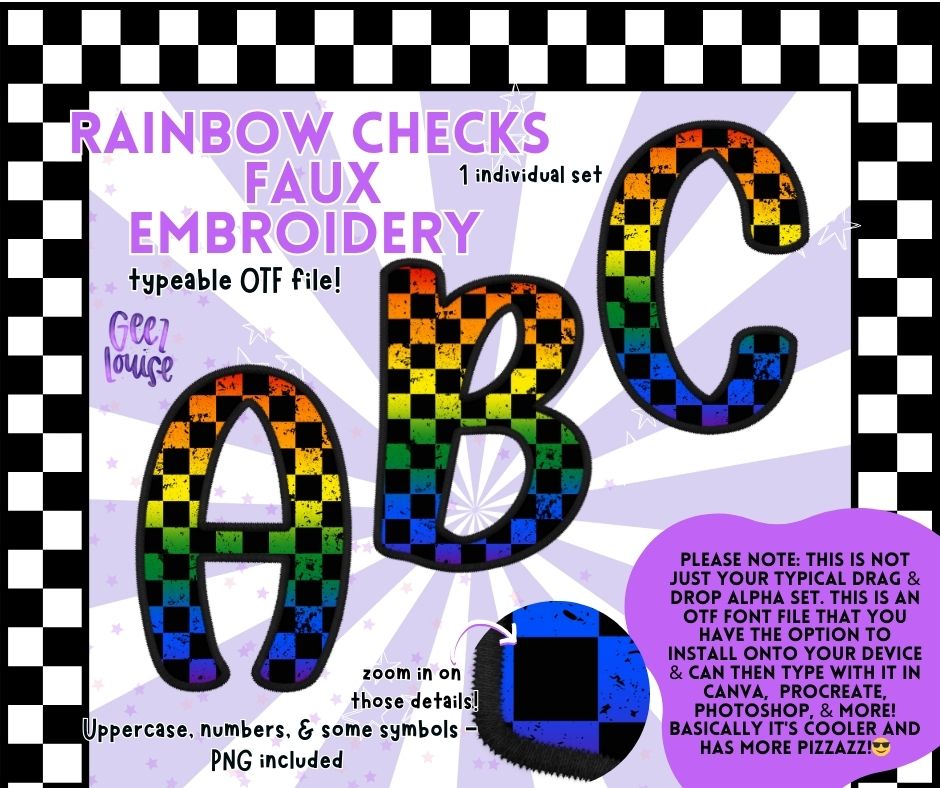
Rainbow Checks Faux Embroidery - Colorful OTF Font + PNG Alpha Set
Add bold, colorful magic to your designs with our Rainbow Checks Faux Embroidery OTF Font! 🌈🖤 This vibrant checkerboard rainbow font gives the illusion of embroidered stitches with none of the extra work. Perfect for sublimation designs, custom apparel, Pride-themed projects, and bold graphic designs that need that extra POP!
Whether you're designing colorful event merch or making stand-out creations, this rainbow checkerboard font brings ALL the happy vibes. 🎉